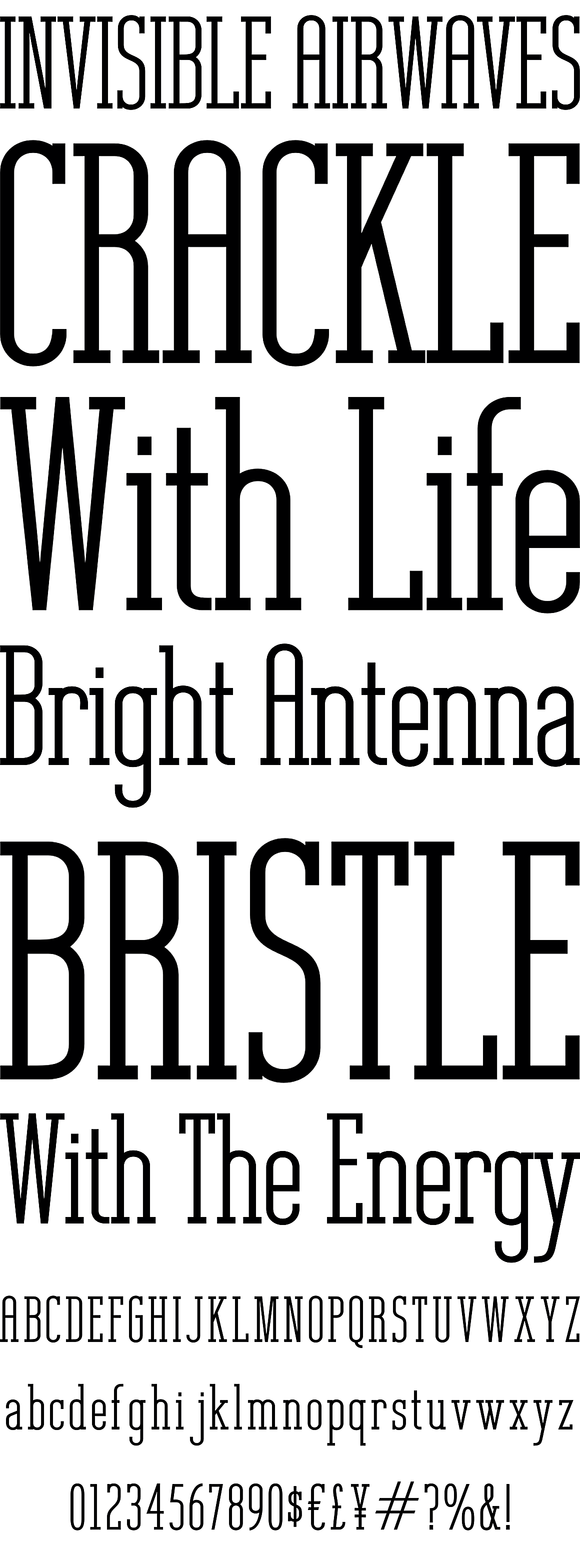
Unknown Caller is a typestyle that has a very tall and condensed look to it, complete with various weights, and smallcaps variants. A clean and mean typeface denoting seriousness, and yet having a slight lightheartedness to it.